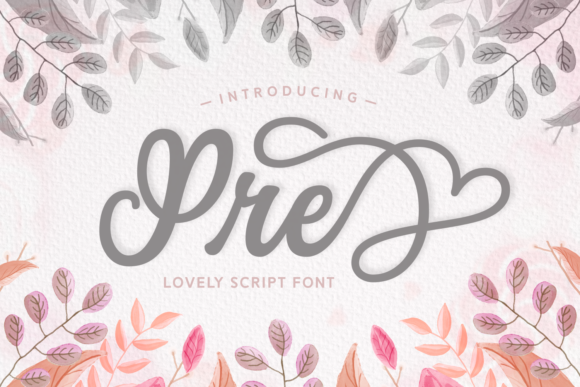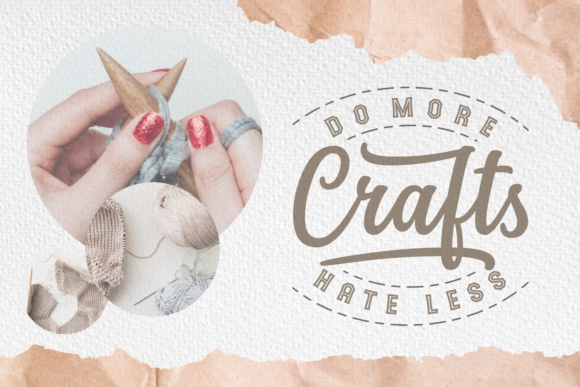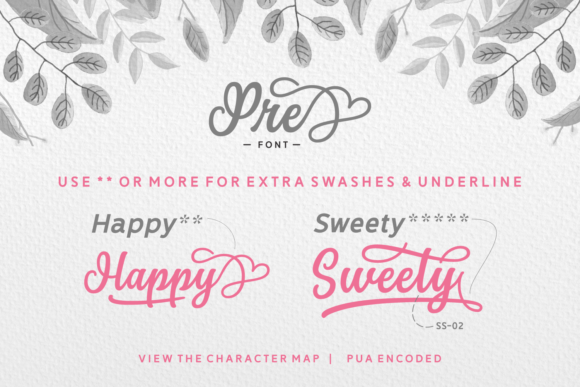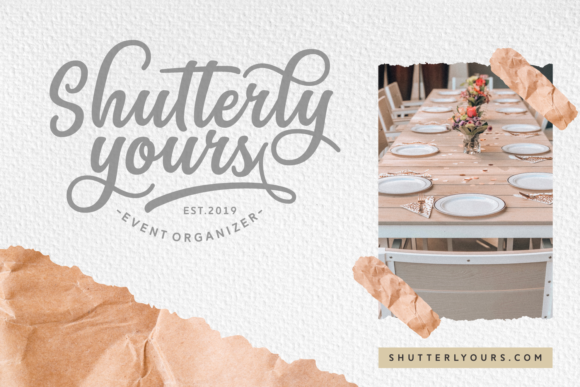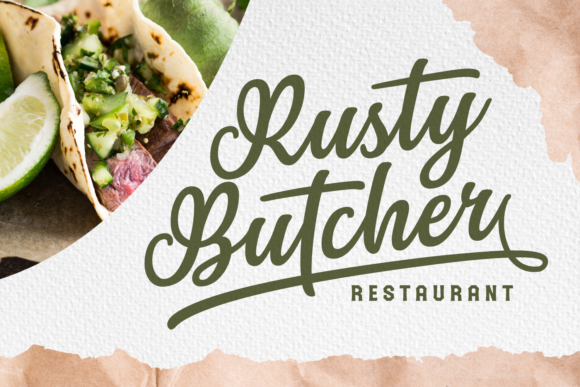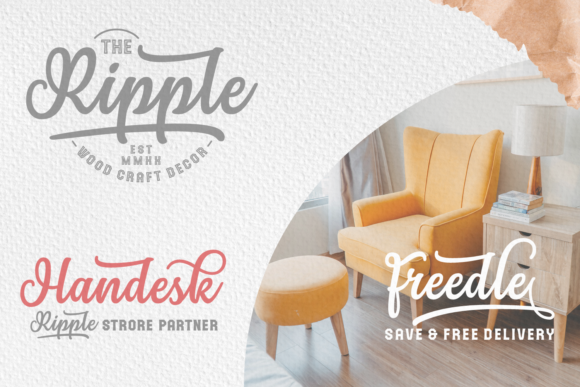
HomeScript FontsPre Font Script Fonts Pre Font FacebookXPinterestWhatsApp Pre Font Poster 2 Pre Font Poster 3 Pre Font Poster 4 Pre Font Poster 5 Pre Font Poster 6 About Pre Font Pre is a beautiful script font. It is perfect for packaging, logos, branding and much more! DOWNLOAD ON CREATIVE FABRICAThis font is sold and delivered by Creative Fabrica. Font Canyon may earn a commission if you buy through this link. People also explored Chunk Black Mistery Heart Font Brunzeld Font Wonderful Valentine Font Saint Paddy Dings Font Restraining Order 10 Frames – Wood & Metal + 7 Walls Moms Font Linttang Font 301 0 TagsPre Font Previous articleTogetherness for Greatness FontNext articleLoredana Font LEAVE A REPLY Cancel reply Comment: Please enter your comment! Name:* Please enter your name here Email:* You have entered an incorrect email address! Please enter your email address here Website: Save my name, email, and website in this browser for the next time I comment. Personal Use Free The Sweet Neo Personal Use Free Read more about this font Twisty Girlz Personal Use Free Read more about this font Micahel Personal Use Free Read more about this font Built Tilting Personal Use Free Read more about this font BLOG Exploring Font Trends Shaping Communication in the Digital Era Fonts, like all design elements, are subject to trends. They play a crucial role in communicating a brand's personality,... Free vs Paid Fonts: Why Investing in Premium Fonts Is Worth It Transform Your Website: Elevate Your Typography with 7 Best Web Font Generators Free Fonts Risk: Why Free Fonts Can Be Dangerous for Designers